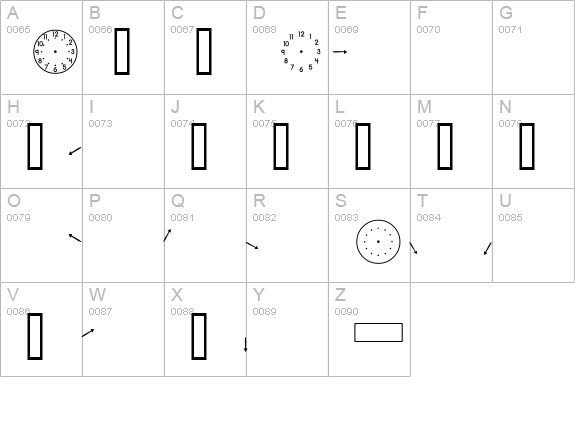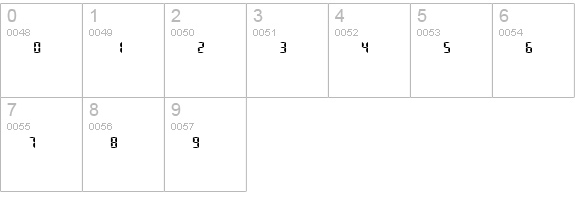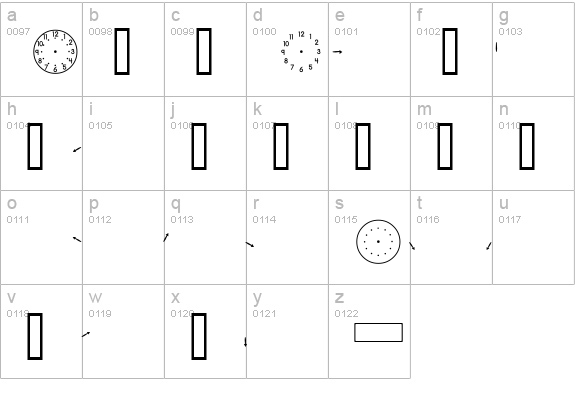
AbcClocks Font Details
Introducing AbcClocks font, a stylish and versatile typeface designed to elevate your designs to the next level. This modern font features a unique blend of elegance and sophistication, making it perfect for a wide range of projects. Whether you're working on branding, advertising, or editorial design, AbcClocks font is sure to make a statement. The best part? AbcClocks font is completely free to download at FontsMarket.com. That's right, you can enhance your creations with this stunning font without breaking the bank. With its clean lines and contemporary feel, AbcClocks font will add a touch of professionalism to any project. Don't miss out on this amazing opportunity to elevate your designs with AbcClocks font today!